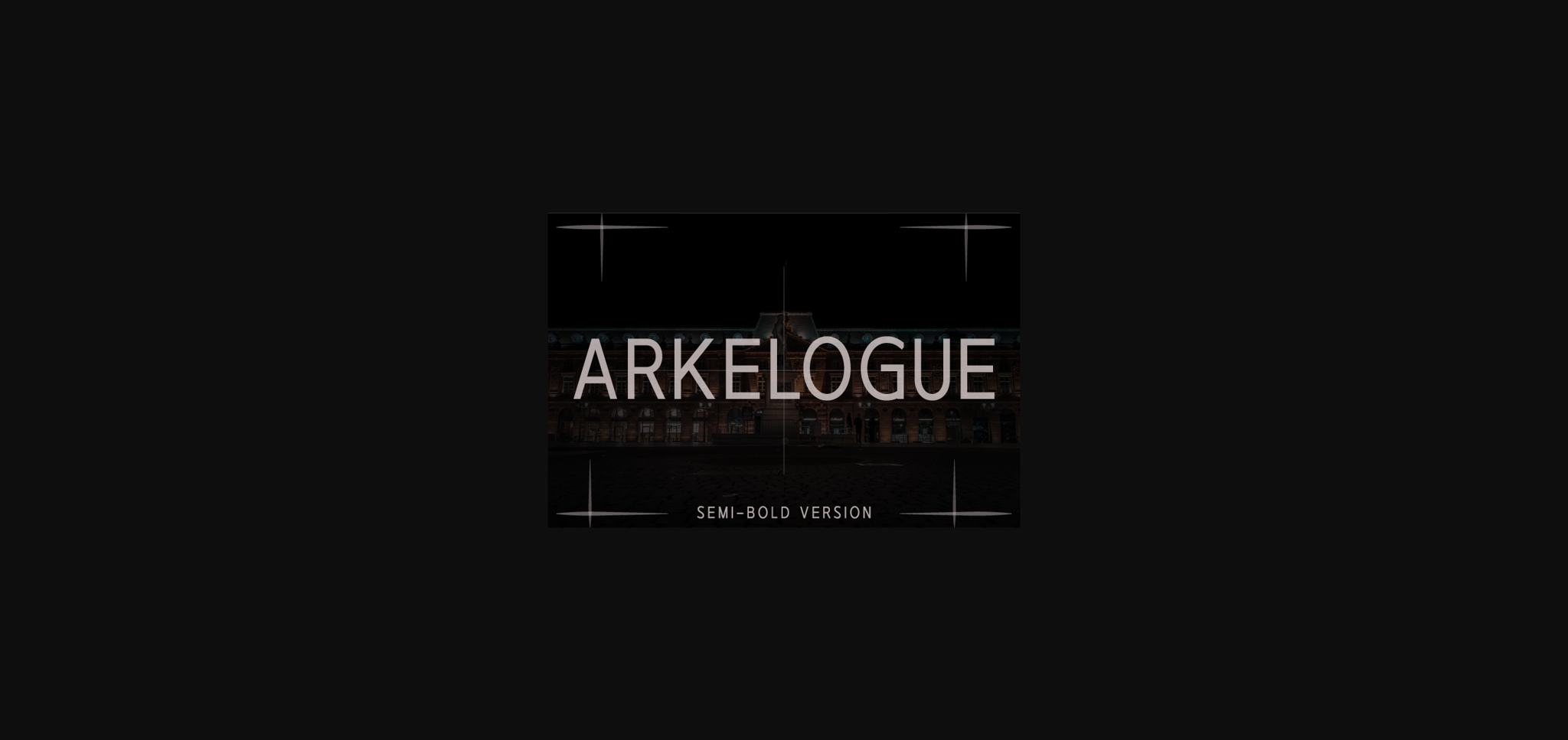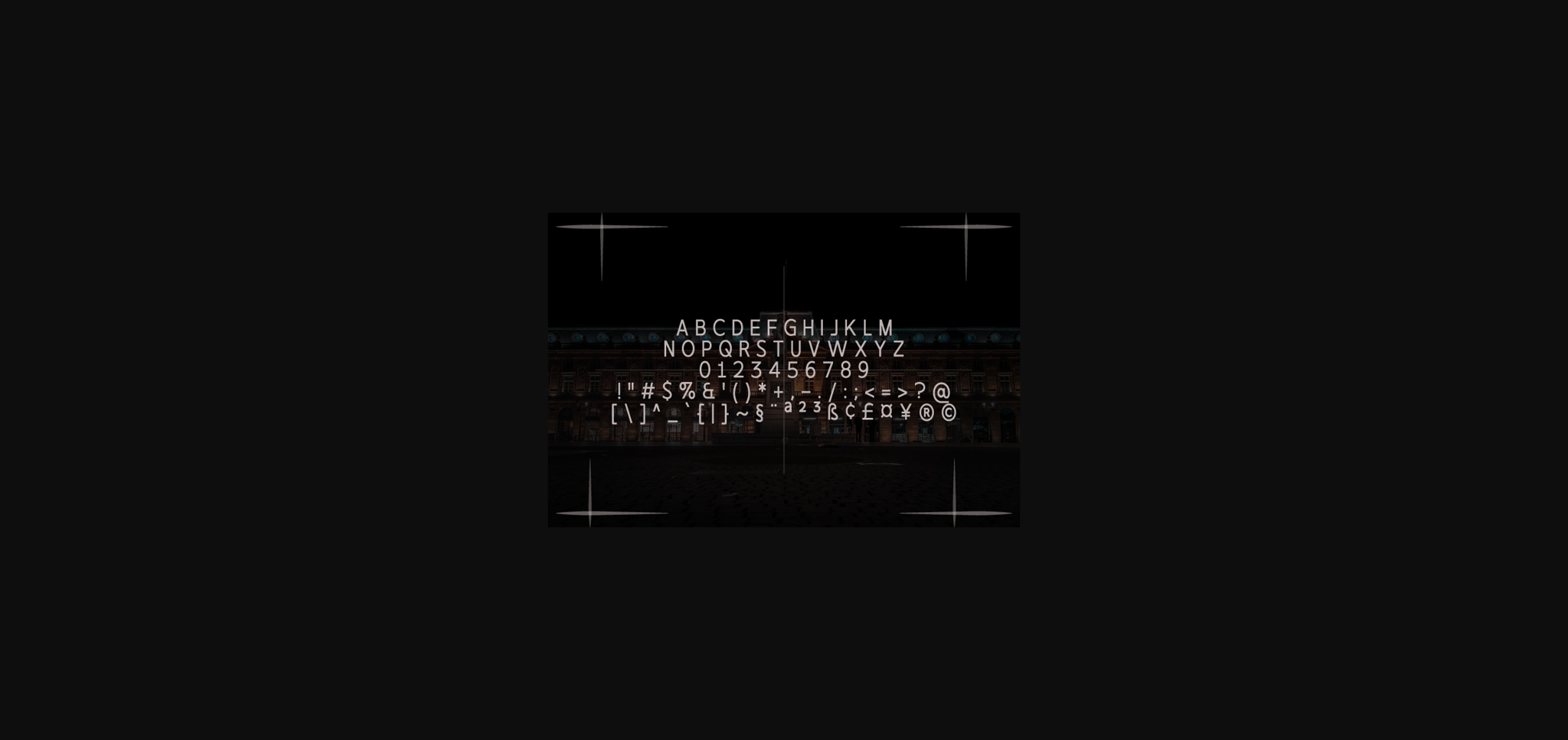
Arkelogue Semi-Bold Font
About Arkelogue Semi-Bold Font
Arkelogue is a simple and casual sans serif font with an undeniably clean feel. With its neat and beautiful arrangement of letters, this typeface will look outstanding in both formal and non-formal designs.
Arkelogue comes with 10 different weights ranging from thin to extra black versions and is sold separately so that you can choose the weight that suits your design/project best.